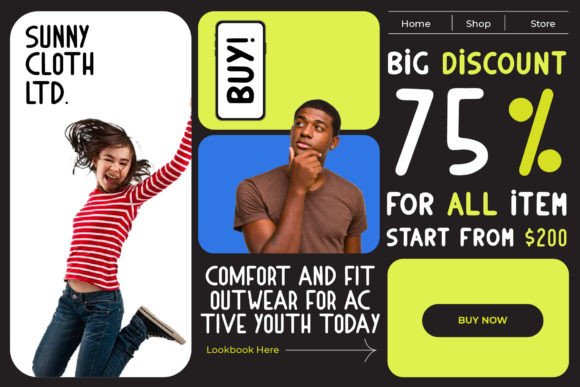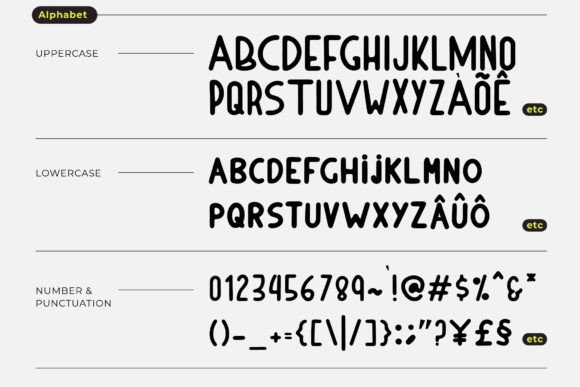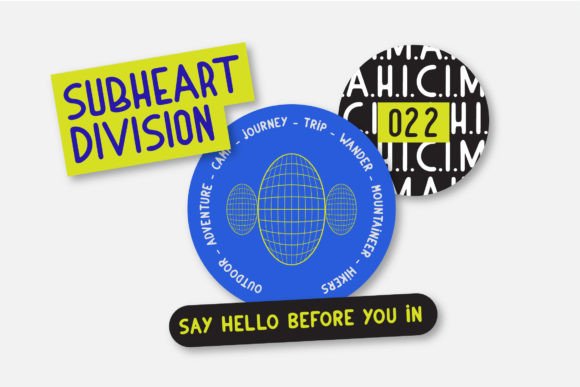
Introduction to Nara Font
Remember that moment when you’re working on a design project and you can’t seem to find the perfect font? You’ve searched high and low, but nothing seems to fit the vibe of your creative project. That’s when you stumble upon the Nara Font, and it’s like a breath of fresh air. This simple yet modern sans serif font is a game-changer for any design resource, offering a clean and sleek style that’s perfect for screens or print.
What sets Nara Font apart is its timeless simplicity, making it a versatile choice for any application. Whether you’re working on a graphic design, branding, or even a digital product, this font is a valuable addition to your design toolkit. With its transparent background and high-quality design, you can be sure that your work will stand out.
Nara Font
- Unique, elegant design suitable for creative projects and artistic expression
- Features a transparent background, making it easy to overlay on images or use as a standalone design element
- High-resolution font with precise details, suitable for use in print or digital media
- Available in a range of sizes, from small to large, to suit various design requirements
- Perfect for designers working on creative projects, including logos, typography, and branding materials
Honest Review: Nara Font
As a designer, I’m always on the lookout for high-quality design resources that can elevate my creative projects. Recently, I stumbled upon the Nara Font, and I must say, it’s been a game-changer for me.
- ✨ Clean and modern design aesthetic that’s perfect for a variety of projects
- ✨ High-quality fonts that are crisp and clear, even when used on a transparent background
- ⚠️ Limited font styles available, which might not be ideal for designers who need a wide range of options
- ⚠️ Not suitable for very large-scale projects, as it may not be as scalable as other fonts
Overall, I’m thoroughly impressed with the Nara Font. It’s a fantastic addition to any designer’s toolkit, and its free download makes it an excellent choice for creative projects. While it may have some limitations, the quality and design aesthetic more than make up for it. If you’re looking for a high-quality font for your next project, I highly recommend giving the Nara Font a try.
Nara Font
The Nara Font is a high-quality design resource that offers a unique and stylish look for your creative projects. With its transparent background, it can be easily integrated into various design platforms.
Tips for Getting the Most Out of Nara Font
To maximize the use of the Nara Font, experiment with different font sizes, colors, and styles to achieve the desired look.
The Nara Font is suitable for a variety of creative projects, including: